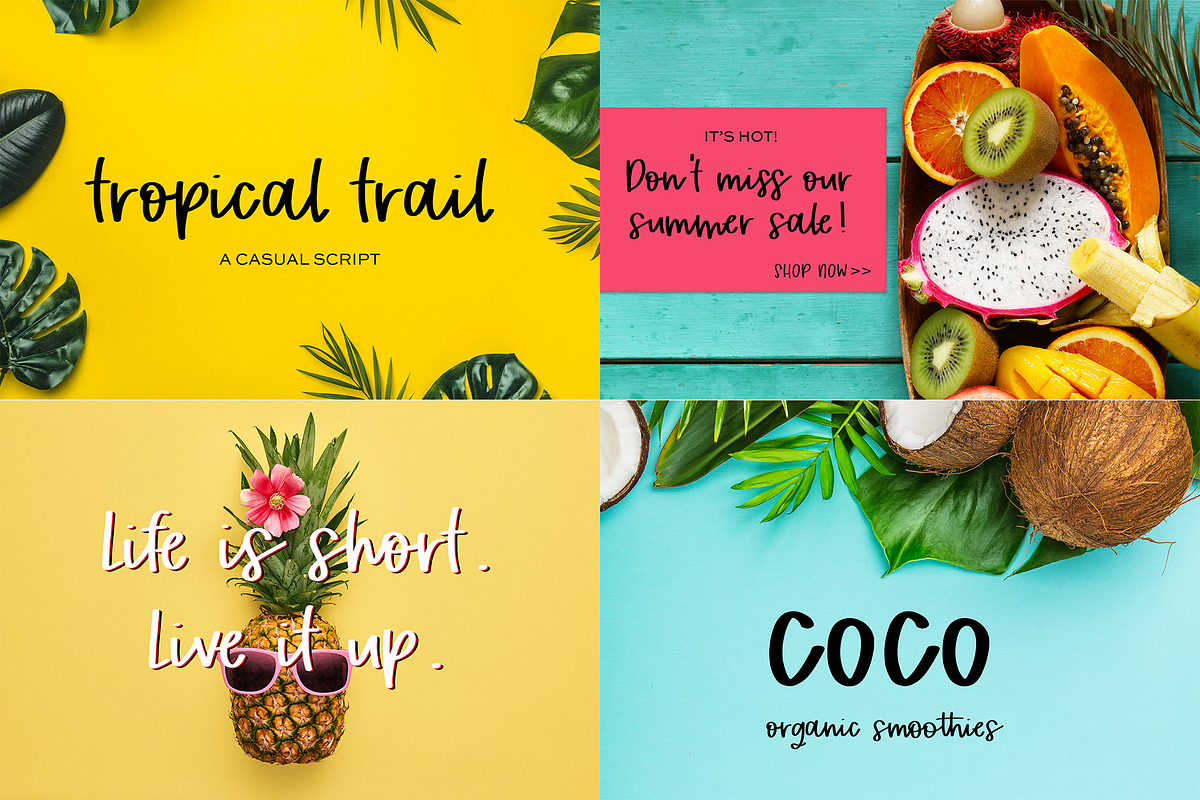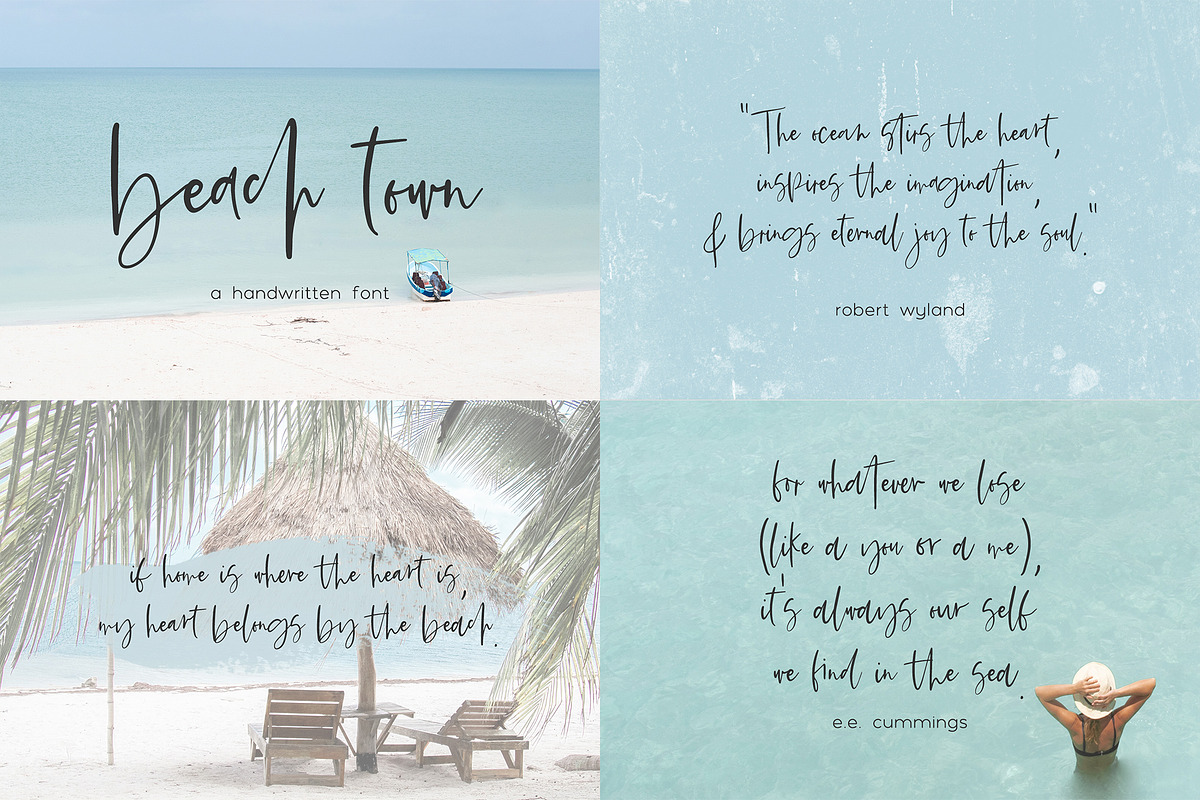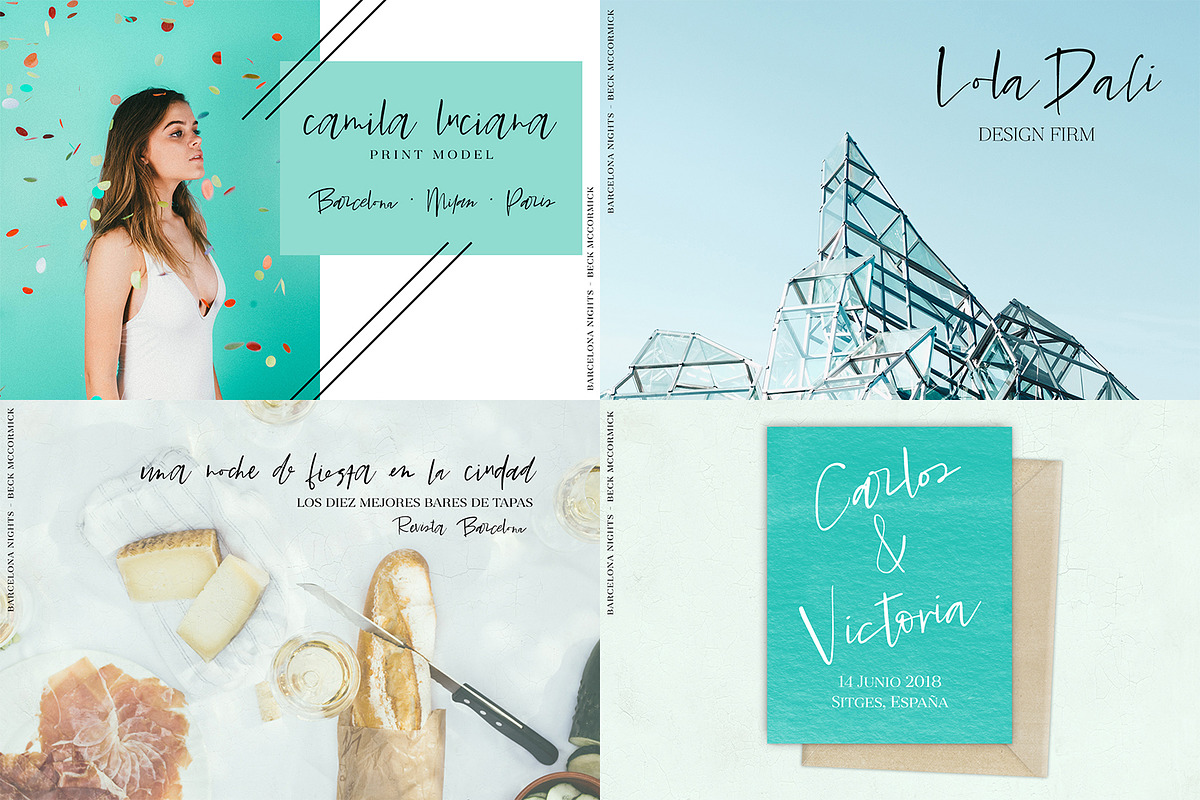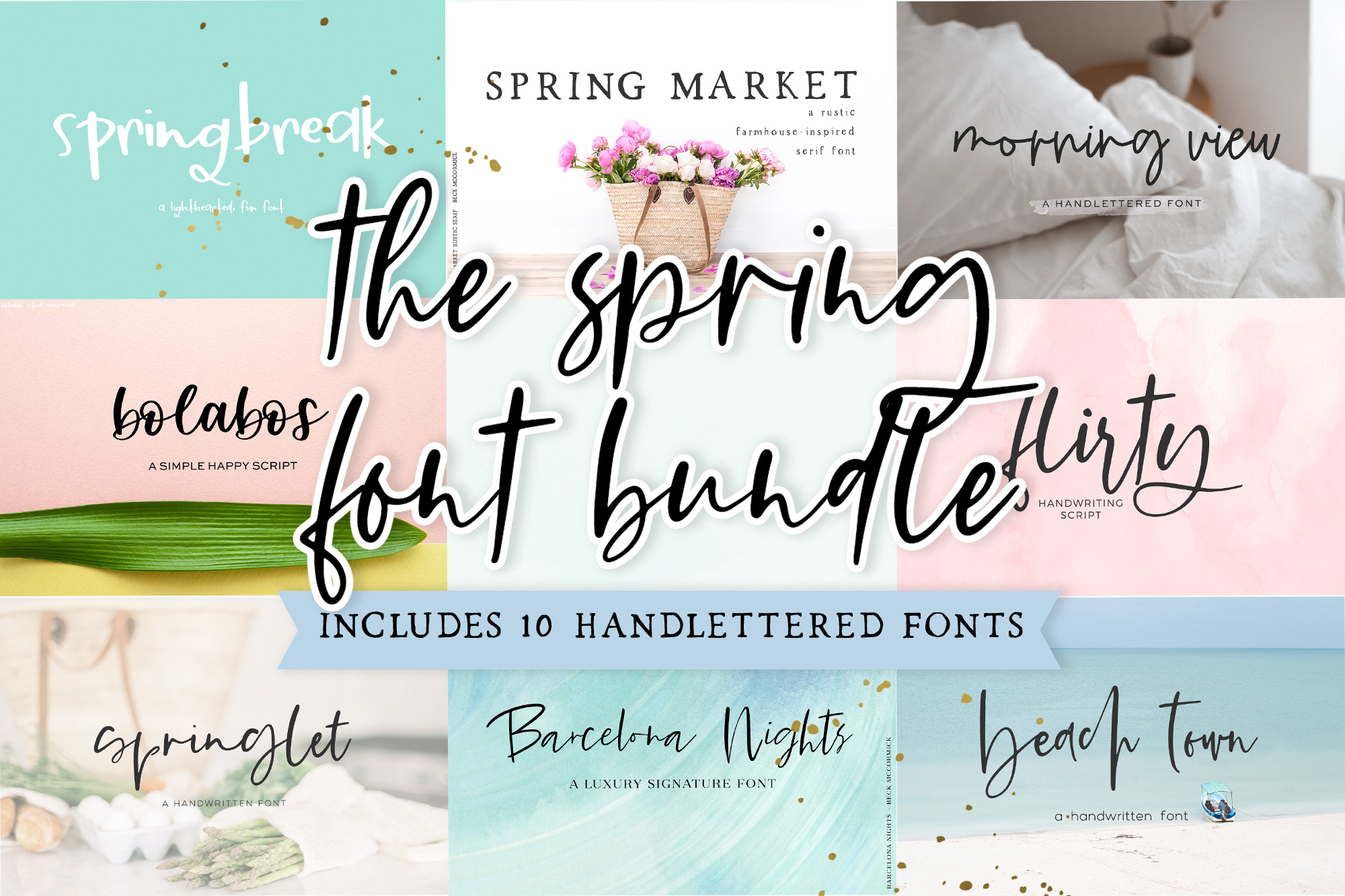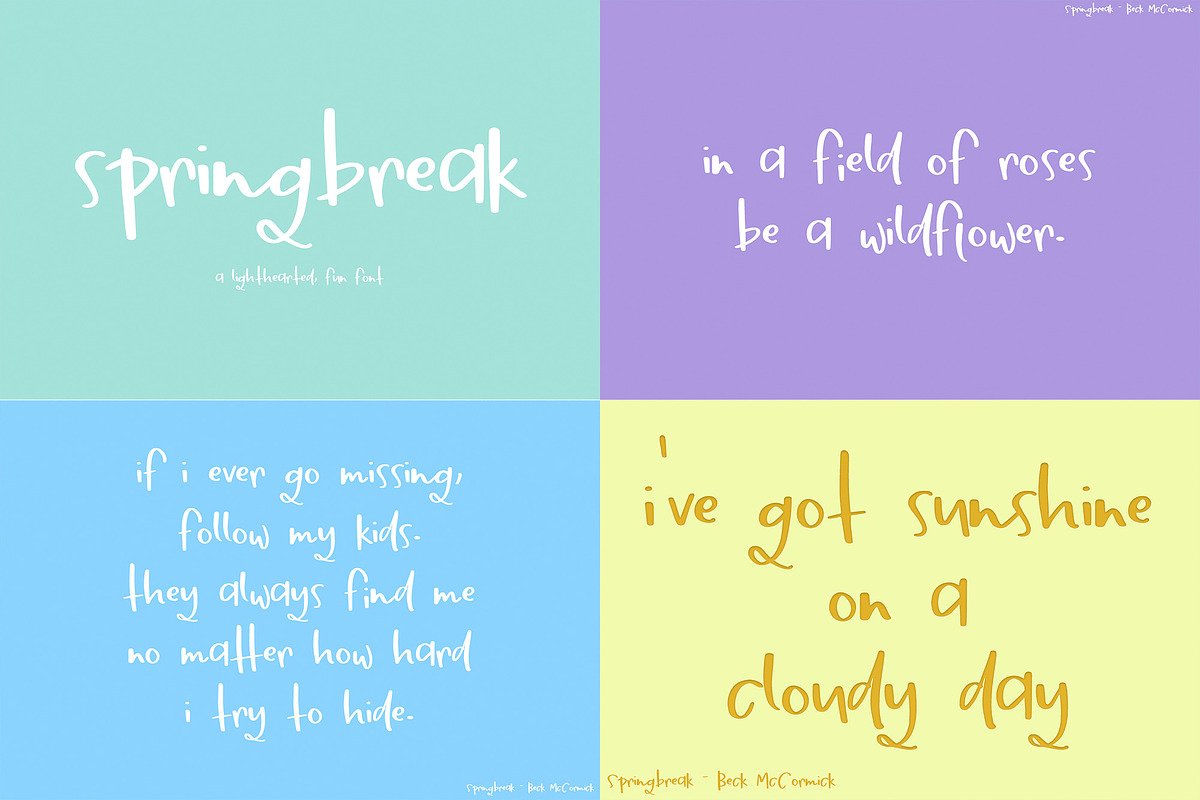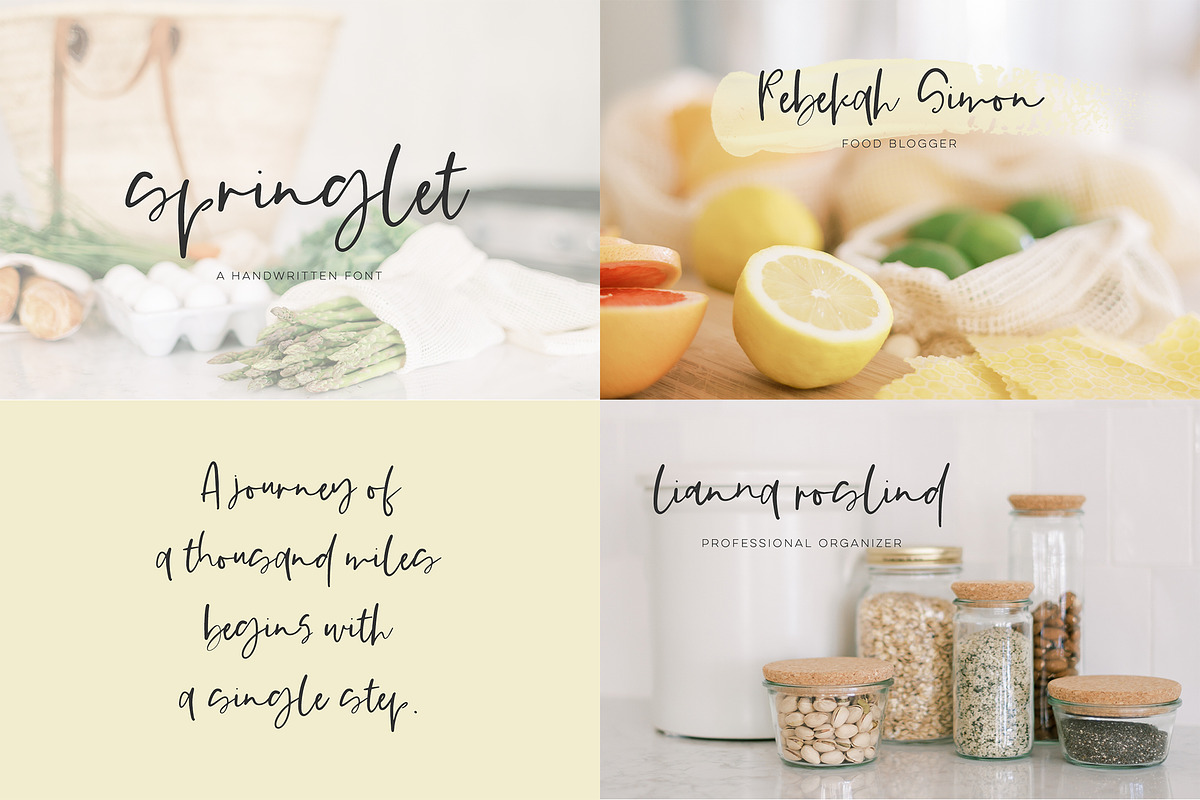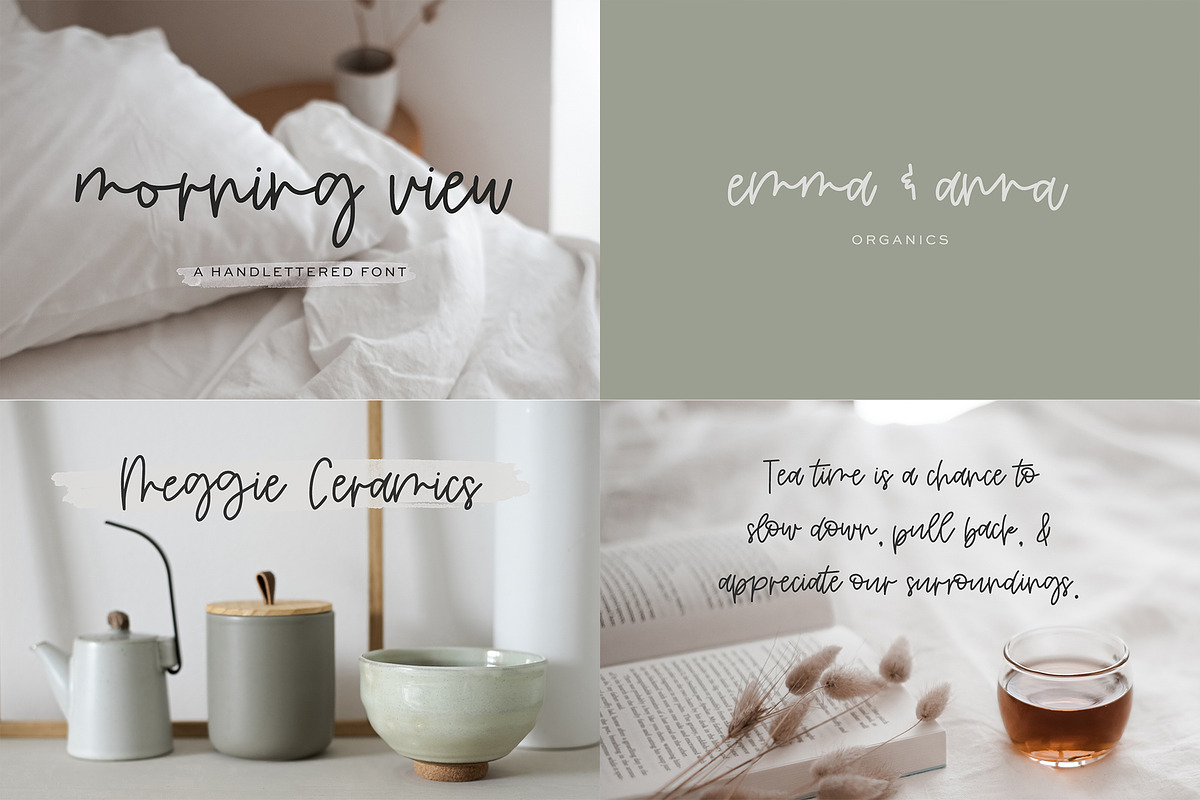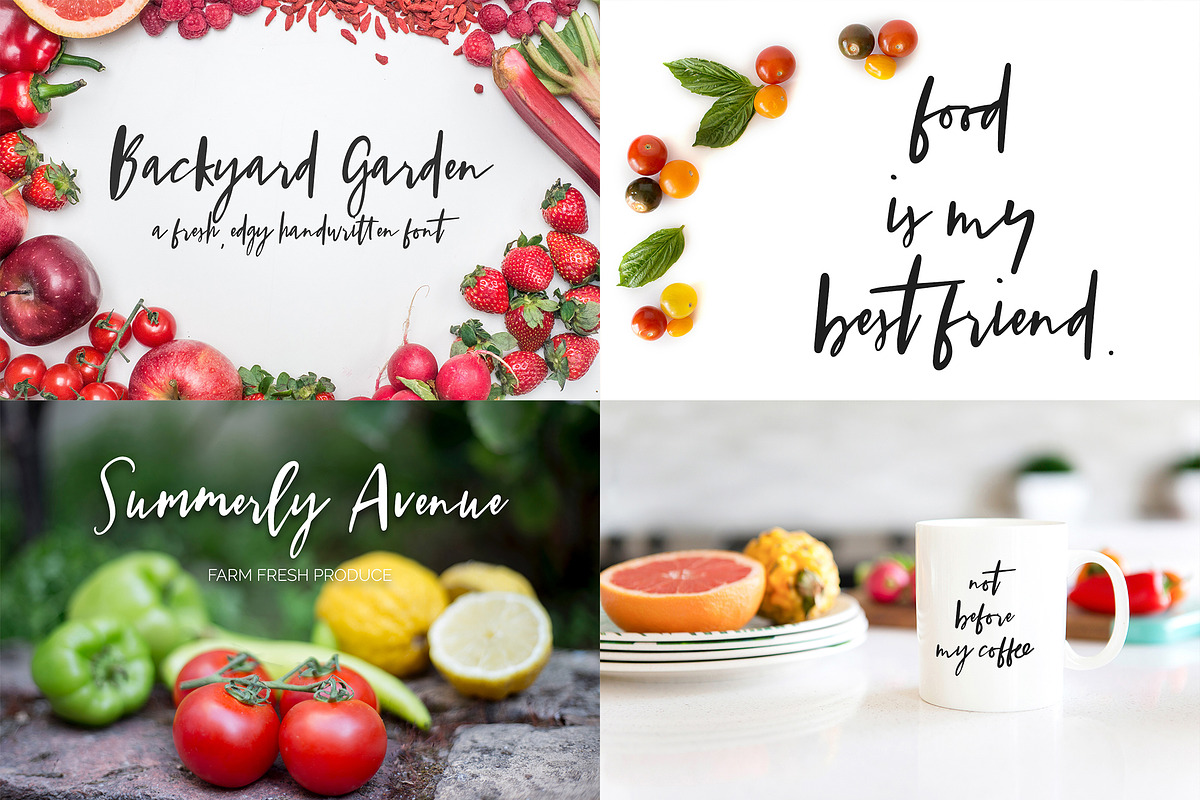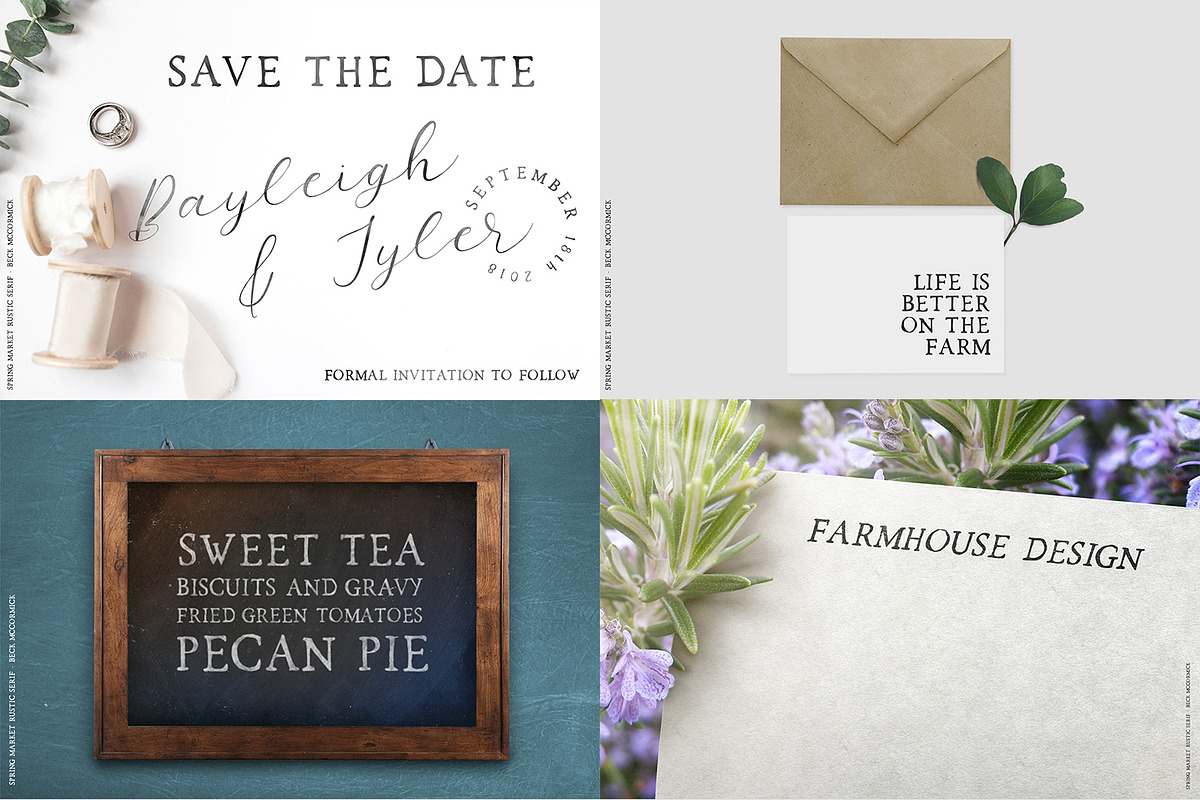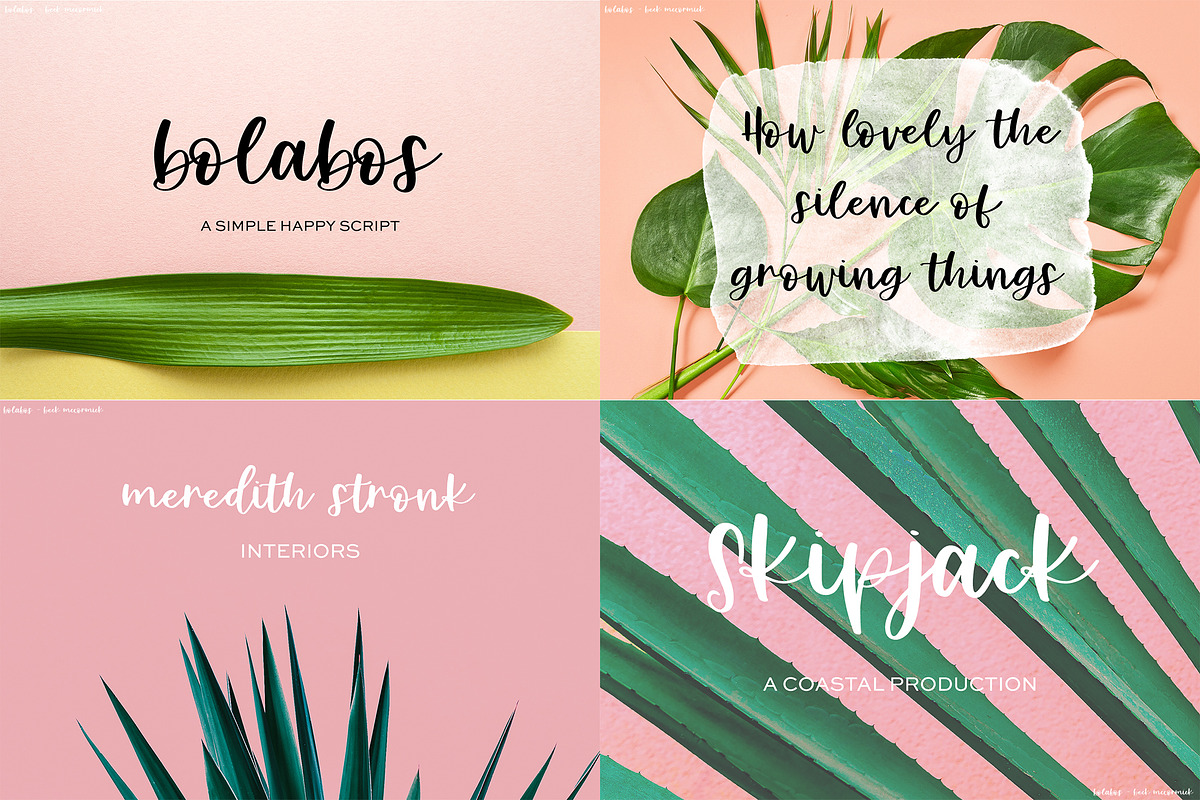
The Spring Font Bundle
Introducing the Spring Font Bundle!
Enjoy 10 beautiful handlettered fonts perfect for all types of spring-themed projects. All handlettered, these fonts will be perfect for greeting cards & designs, logos & branding, website elements, quote graphics, and crafting projects on your Cricut or Silhouette machine!
This bundle includes:
- Springlet Script
- Barcelona Nights Script
- Beach Town Script
- Flirty Script
- Backyard Garden Script
- Morning View Script
- Bolabos Script
- Tropical Trail Script
- Springbreak Script
- Spring Market Script